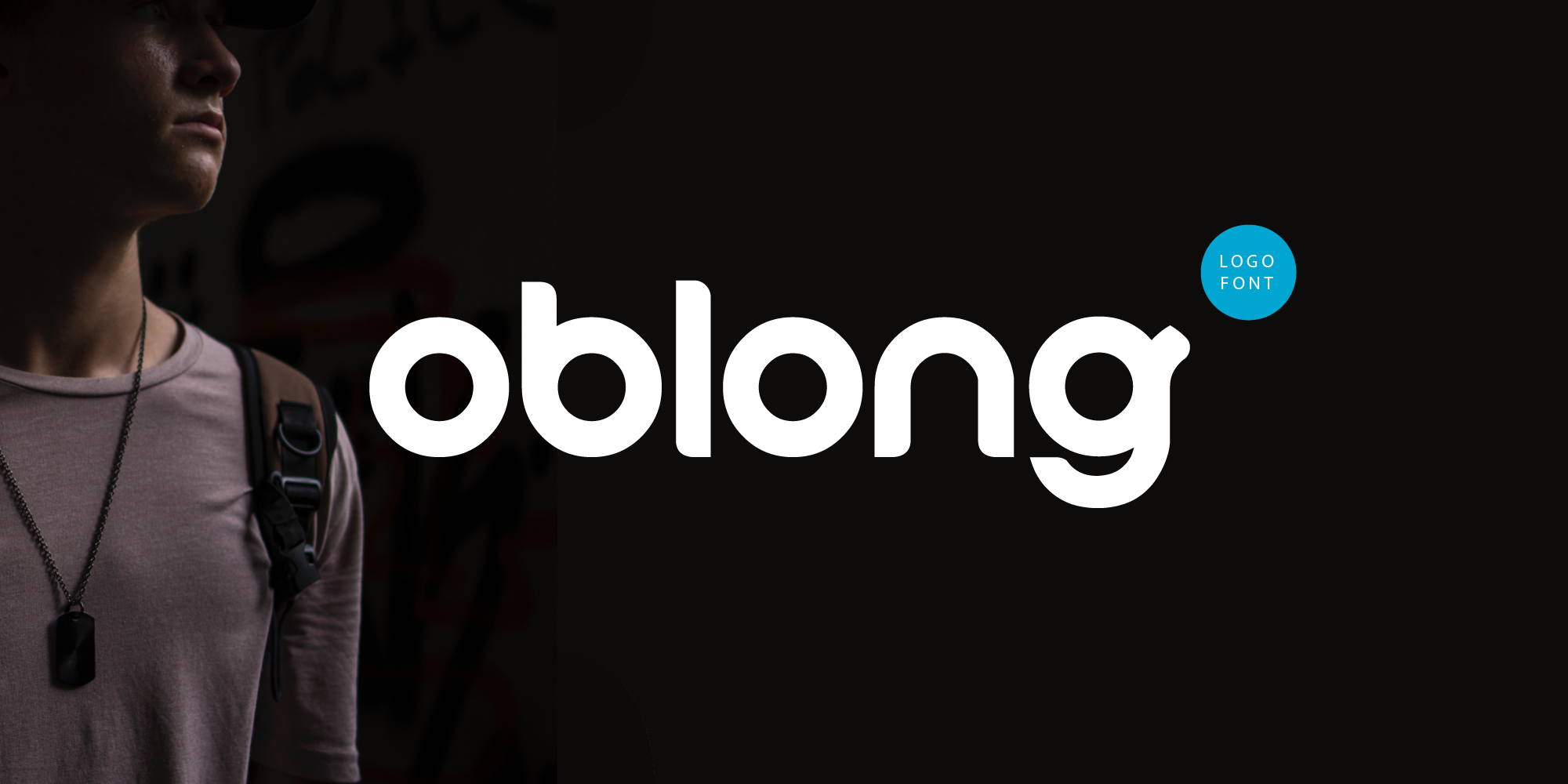
Oblong Font is perfect for modern architecture firms, geometric design studios, contemporary art galleries, minimalist tech branding, abstract product packaging, progressive corporate identities, avant-garde publications, and innovative designs that require distinctive geometric precision and architectural aesthetics.
This font is exciting because it embraces the beauty of geometric abstraction through its elongated letterforms that challenge traditional typography conventions while maintaining exceptional functionality. The distinctive character design reflects the principles of modern architectural theory and geometric art movements, making it ideal for brands seeking to establish themselves as leaders in contemporary design innovation.
Oblong Font belongs to the geometric display font family, featuring architectural styling and abstract elements that enhance its effectiveness for design-conscious and structure-focused applications.
Whether you're creating architectural brand identities or geometric artistic graphics, Oblong Font Free Download delivers exceptional geometric sophistication and contemporary appeal. This typeface represents the perfect fusion of mathematical precision with artistic expression, making it essential for designers working on projects that demand both structural integrity and visual innovation. The font's distinctive presence works magnificently in architectural communications, modern branding, and progressive design systems, providing optimal readability while maintaining its geometric character that transforms any design with architectural elegance and establishes visual structure across all media platforms and contemporary communications.